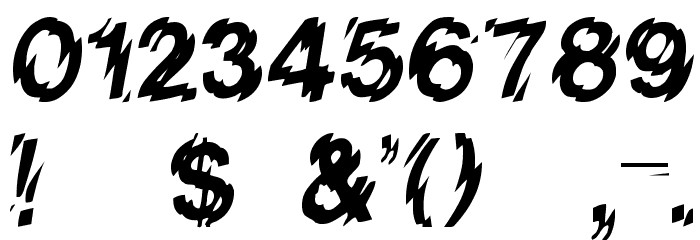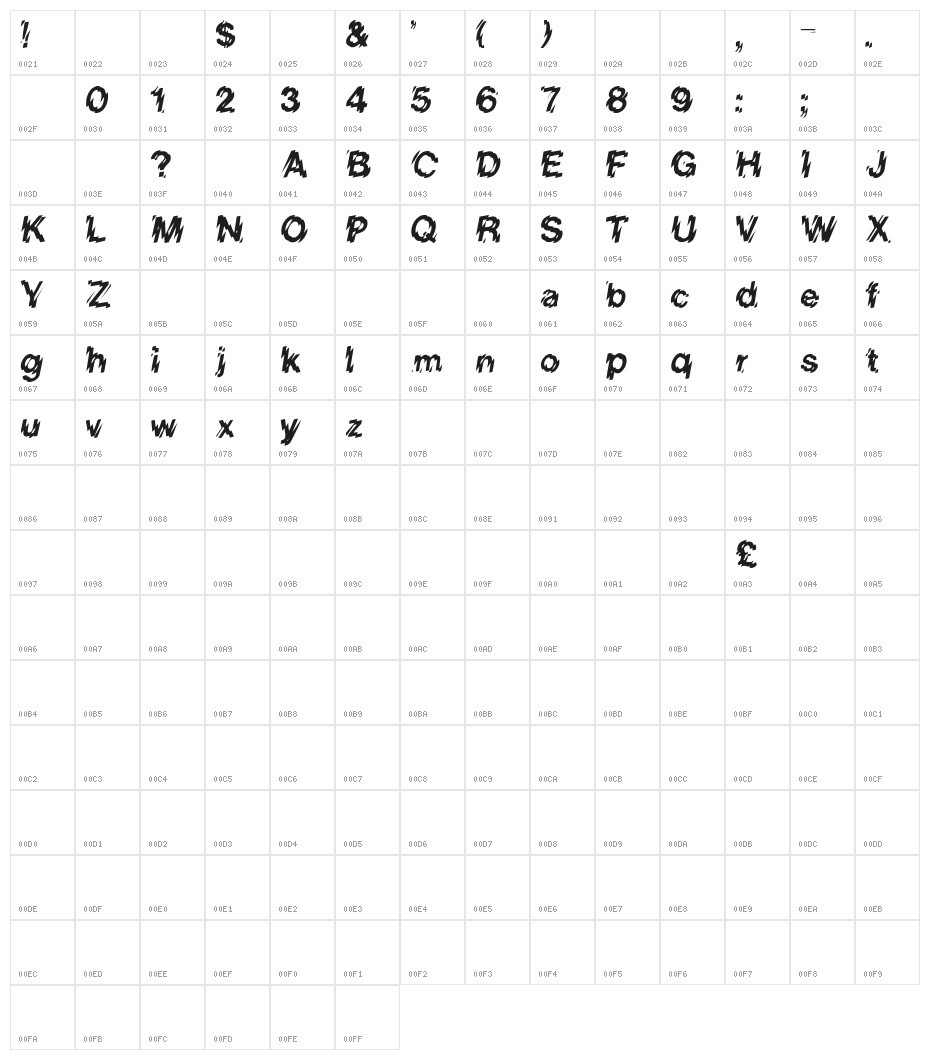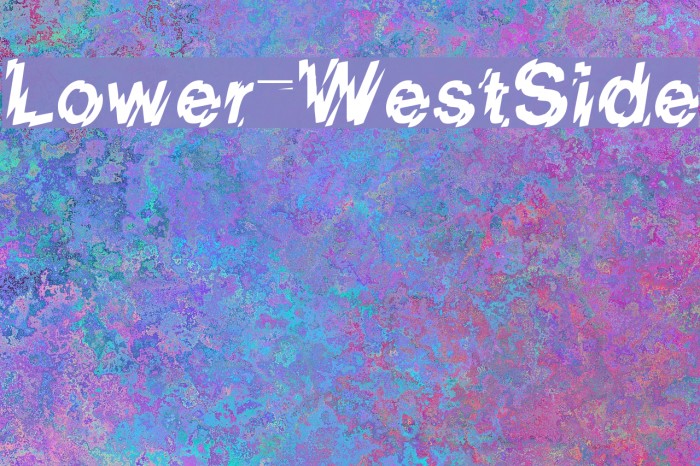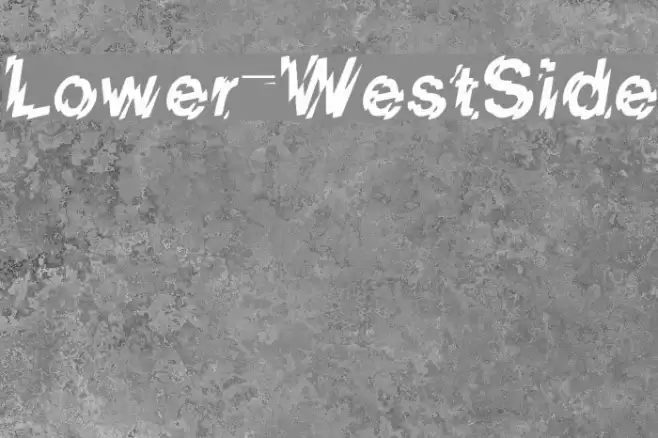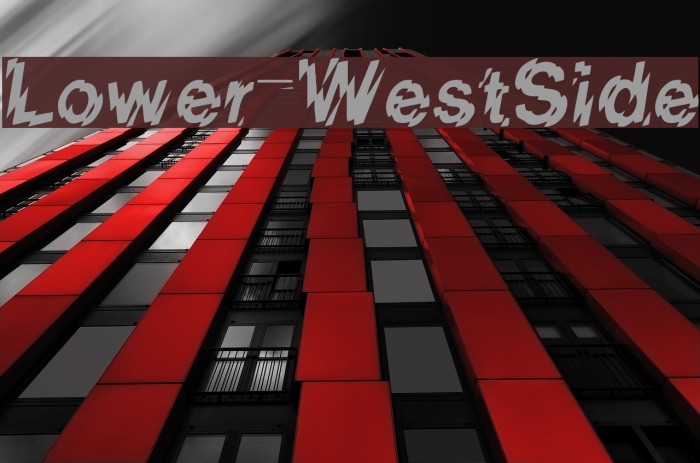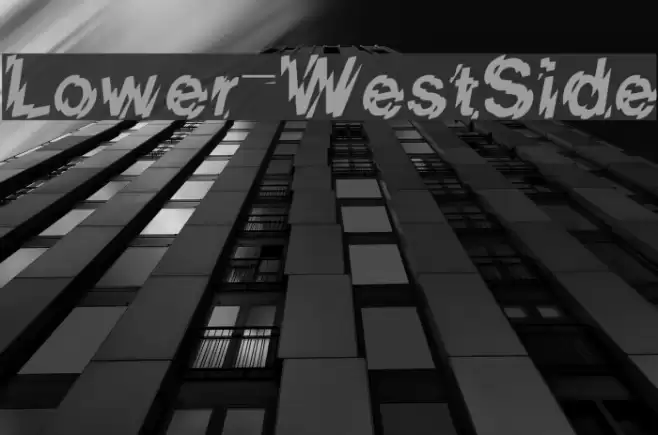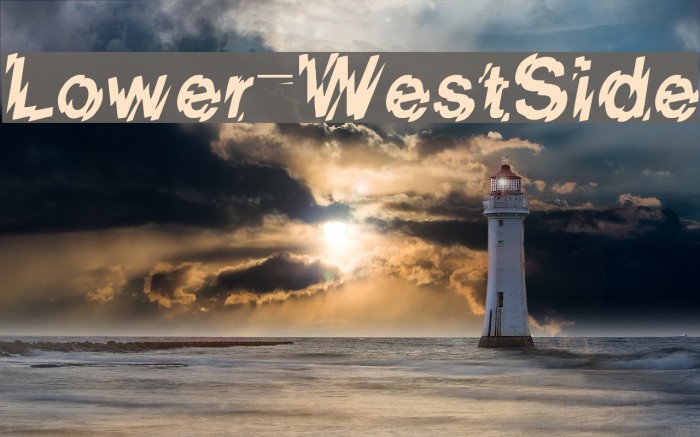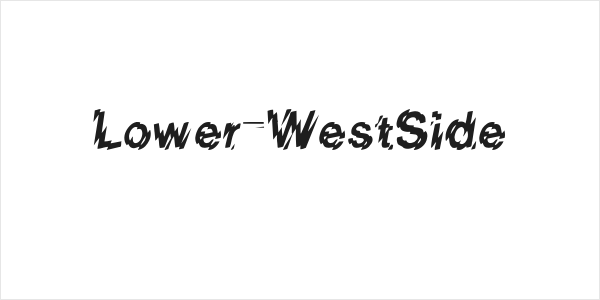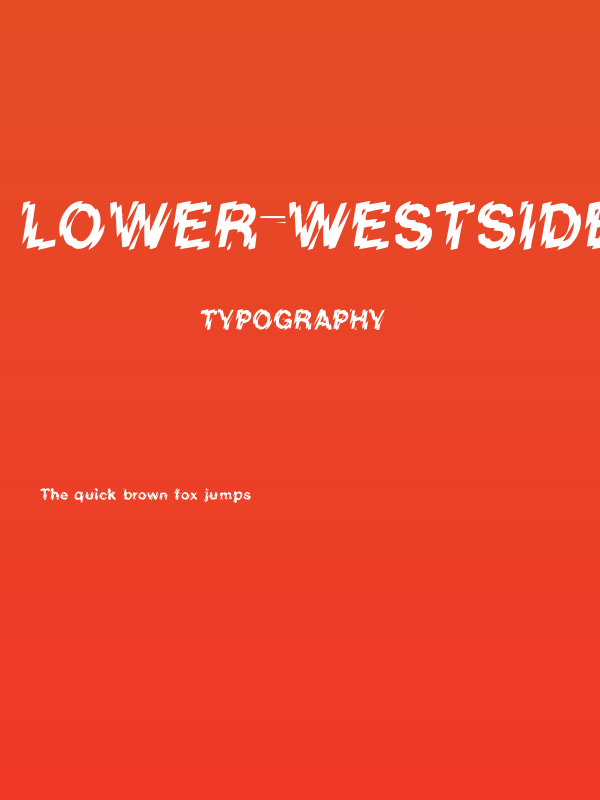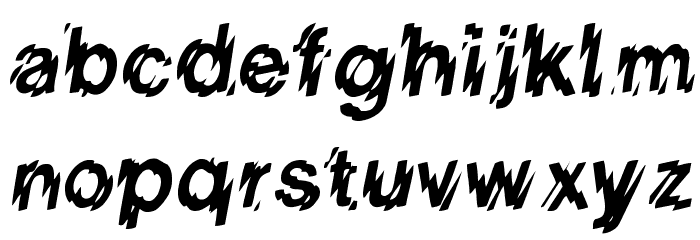
Lower-WestSide Font
Lower-WestSide Description
This font features a bold and dynamic style with a distressed, jagged appearance that gives it a sense of movement and energy. The characters are heavily stylized, with irregular edges and a hand-drawn feel, making it stand out with a unique visual impact. The uppercase and lowercase letters maintain a consistent style, while the numbers and special characters follow the same aesthetic, ensuring a cohesive look across all text. This font is ideal for projects that require a bold statement or a gritty, urban vibe.
| Overall Style | Modern, Urban |
| Proposed Projects | Ideal for posters, album covers, streetwear branding, and edgy graphic designs. |